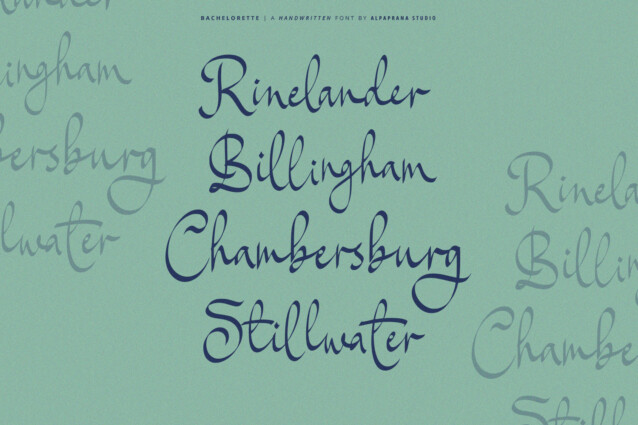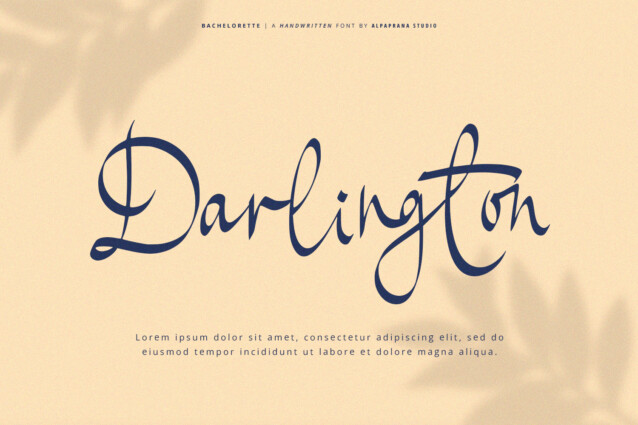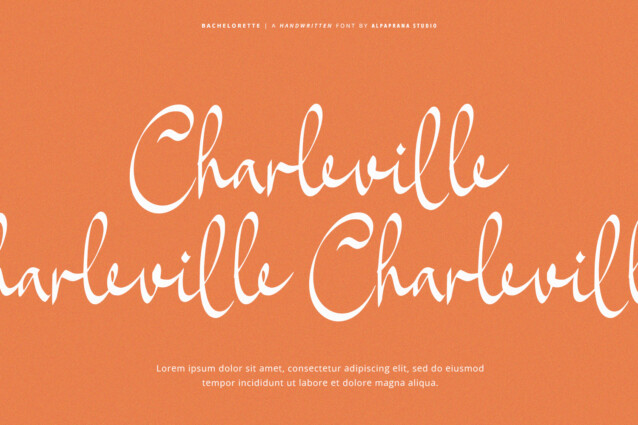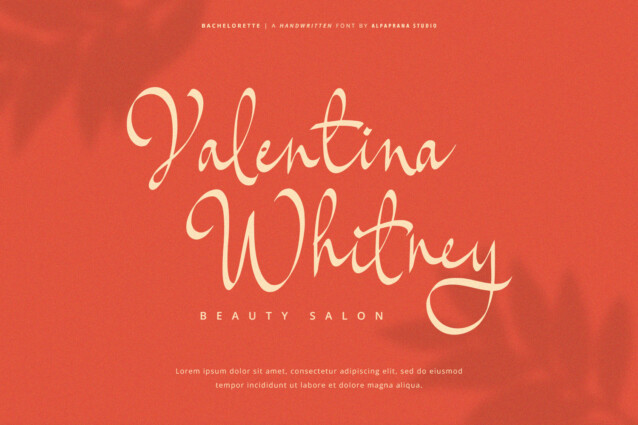
Bachelorette Typeface is a handwritten font with natural and modern feels. It will be perfectly used for Branding, Logo Design, Lettering, Logotype, Clothing, Poster, magazine, packaging, posters, shopping bags, t-shirts, book covers, photography, special events and other design project.